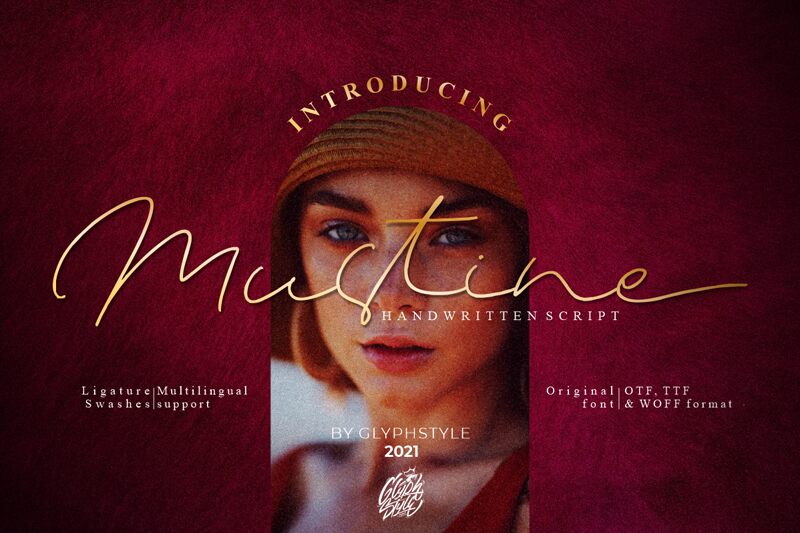
Introducing Mustine, a thin handwritten font designed by GlyphStyle. Perfect for creating authentic and natural designs, Mustine is ideal for crafting logos, social media posts and flyers. Its light weight adds a delicate charm to your projects.